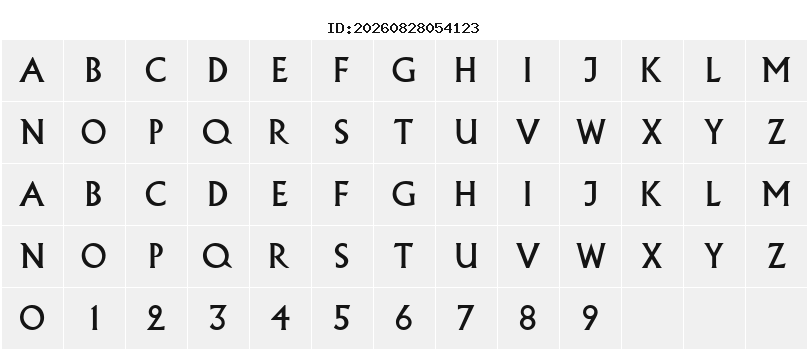
Berette Preview
• Font Name: Berette
• Full Font Name: Trek Movie 2
About Berette.ttf
Berette.ttf is a modern, elegant sans-serif font designed for ultimate readability and visual harmony. Perfect for branding, headlines, web design, and print materials.